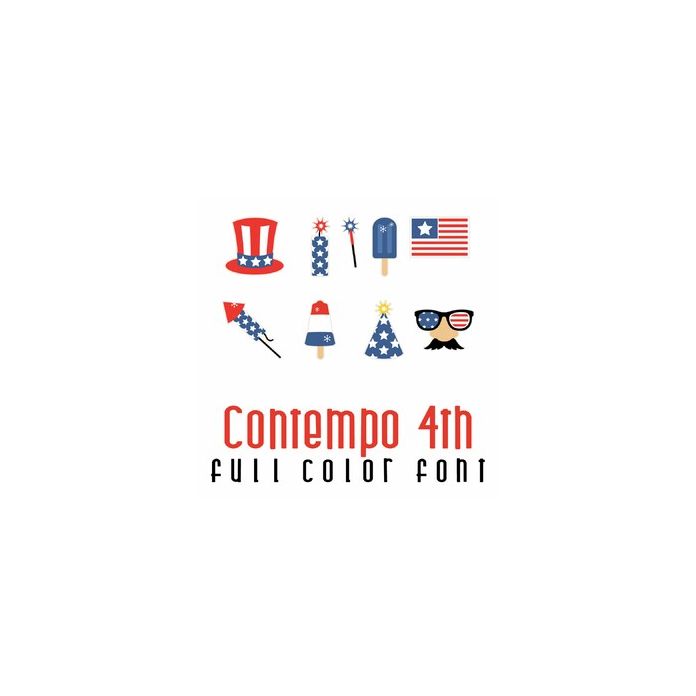
This adorable full-color doodlebat font features 26 Fourth of July imagery, perfect for cards, crafts, gifts, decor, scrapbook pages, planner stickers, and more!